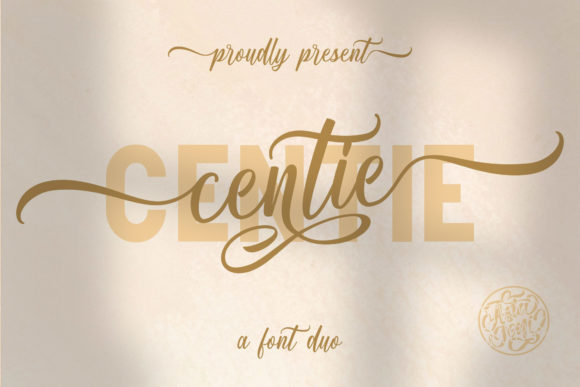
**Introducing Centie, the Font Duo that Will Elevate Your Designs to New Heights**
Are you ready to unveil the secret weapon that will transform your creative visions into breathtaking masterpieces? Centie, the spectacular duo font from the renowned Flamde Studio, is here to ignite your imagination and empower you to craft designs that leave an unforgettable mark.
**Sans Serif and Script, a Match Made in Typographic Heaven**
Centie is a harmonious blend of a sleek sans serif and an elegant script font, offering you the ultimate versatility to cater to any design whim. Whether you're crafting wedding invitations that exude timeless romance or designing logos that demand attention, Centie's got you covered.
**The Perfect Canvas for Unforgettable Wedding Stories**
If you're a wordsmith who weaves tales of love and commitment, Centie is your muse. It's the ultimate font for wedding books, capturing the essence of this special day with every stroke. The sans serif's clean lines add a touch of modern elegance, while the script's delicate flourishes evoke the timeless beauty of handwritten vows.
**A Versatile Font, Boundless Possibilities**
Beyond the realm of weddings, Centie's versatility shines through. Its clean lines and graceful curves lend a touch of sophistication to branding, packaging, and web design. Let your imagination soar as you explore the endless possibilities that Centie holds.
**Craft Designs that Make a Statement**
With Centie, mediocrity is a thing of the past. This font duo empowers you to create designs that captivate, inspire, and leave a lasting impression. Let your words dance across the page, imbued with the elegance and charm that only Centie can bring.